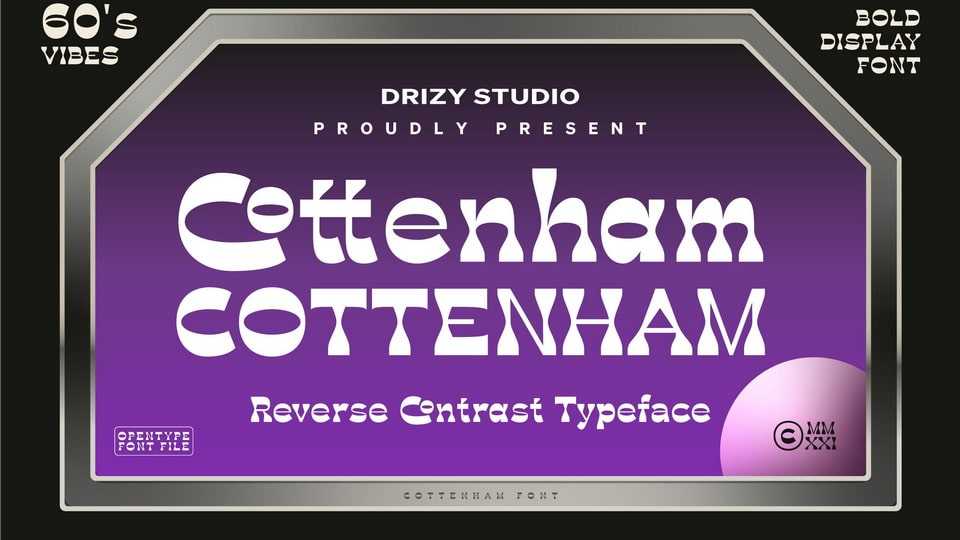
Download Cottenham font, a reverse contrast display typeface designed special for unique futuristic theme. Cottenham font offers all the basic styles you will need for a successful project.
Designer: Drizy Studio